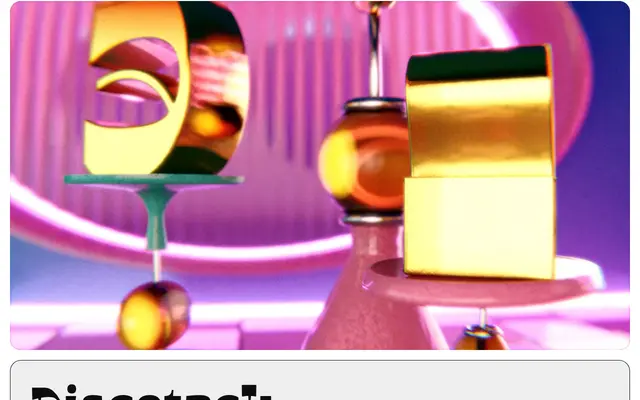
Discotack
Big Fog Foundry · Brian Dove · 2023
Discotack specimen from Big Fog Foundry
A reverse contrast slab serif by Brian Dove that fuses disco-era lettering with a loose, organic Western sensibility, inspired by Benguiat's Discotheque (1967).
Where most reverse contrast display types rely on rigid geometry, Discotack introduces flowing, irregular strokes that give the letterforms an off-kilter, handmade quality. Capitals set together produce near-flat text bands top and bottom, while the lowercase introduces a wavy, undulating texture suited to playful settings. Aimed squarely at logos, large-scale display use and any context that calls for theatrical personality over neutrality.
Discotack inverts the conventional stress of a slab serif, placing thick strokes on the horizontals rather than the verticals, in the tradition of reverse contrast or Tuscan display types. Its organic, flowing forms set it apart from the angular genre norm.